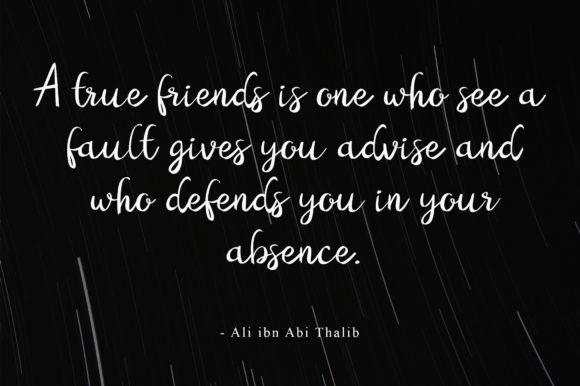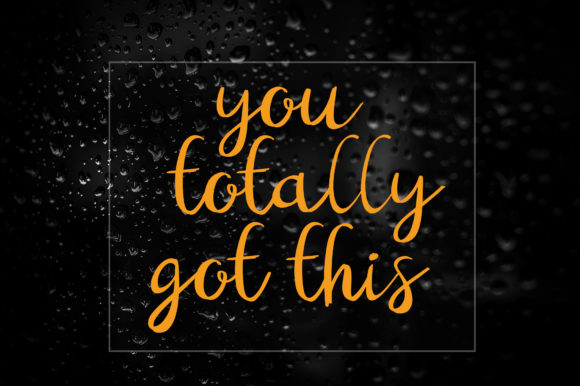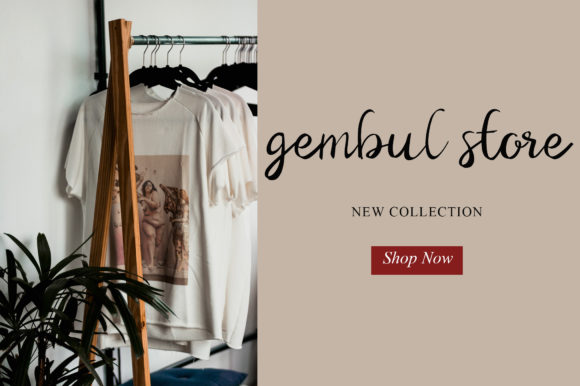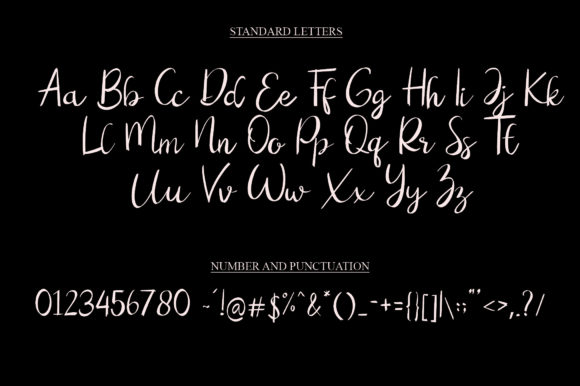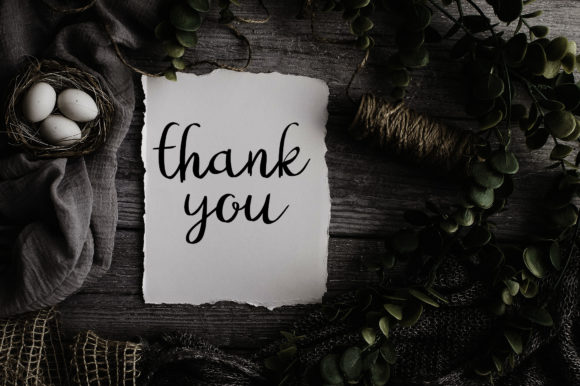
Rainbow Font
About Rainbow Font
Rainbow is a delicate, round lettered handwritten font. It has an authentic modern look making it perfect for branding and digital designs.
Use this font for logos, social media, websites, blogs, wedding decor, home decor, invitations, business cards, branding, and more!